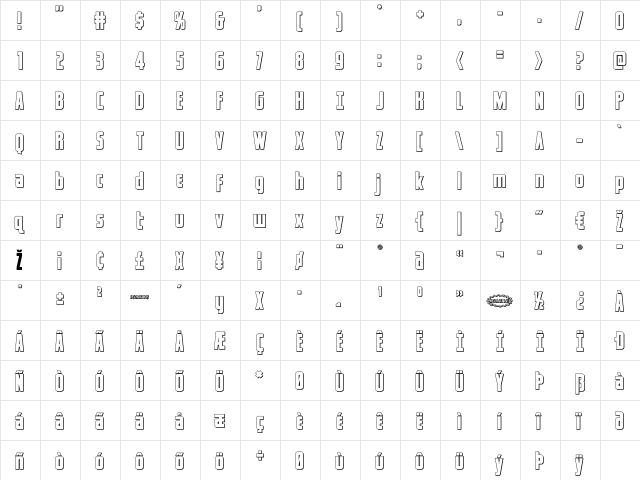
Captain Canaveral Outline Outline
Design Context for Captain Canaveral Outline Typeface
Captain Canaveral Outline is built around its visual character rather than neutral utility — its distinctive forms are designed to make an impression at display sizes.
Font Pairing: Pair with a clean neutral sans-serif for body copy to let Captain Canaveral Outline's character lead without overwhelming the composition.
Pro Tip: Treat Captain Canaveral Outline as the centrepiece of your typographic hierarchy. One strong heading set in a decorative face can carry an entire layout.